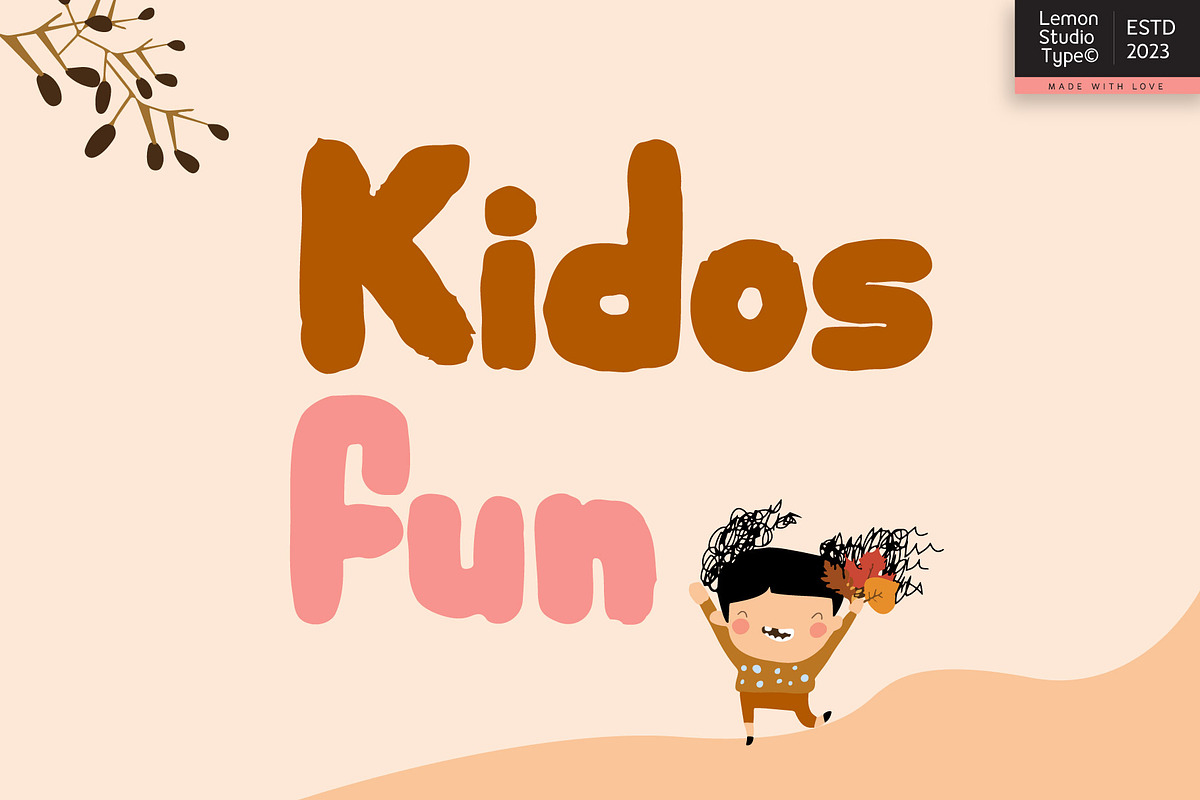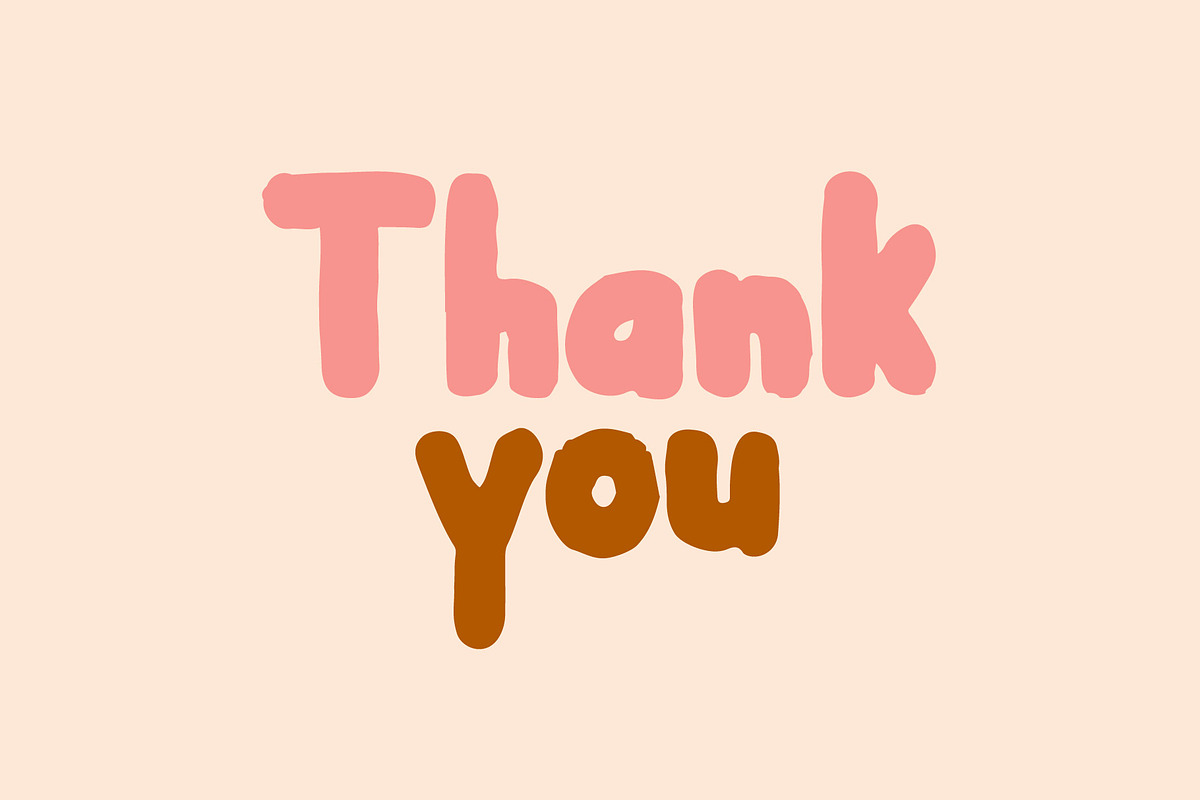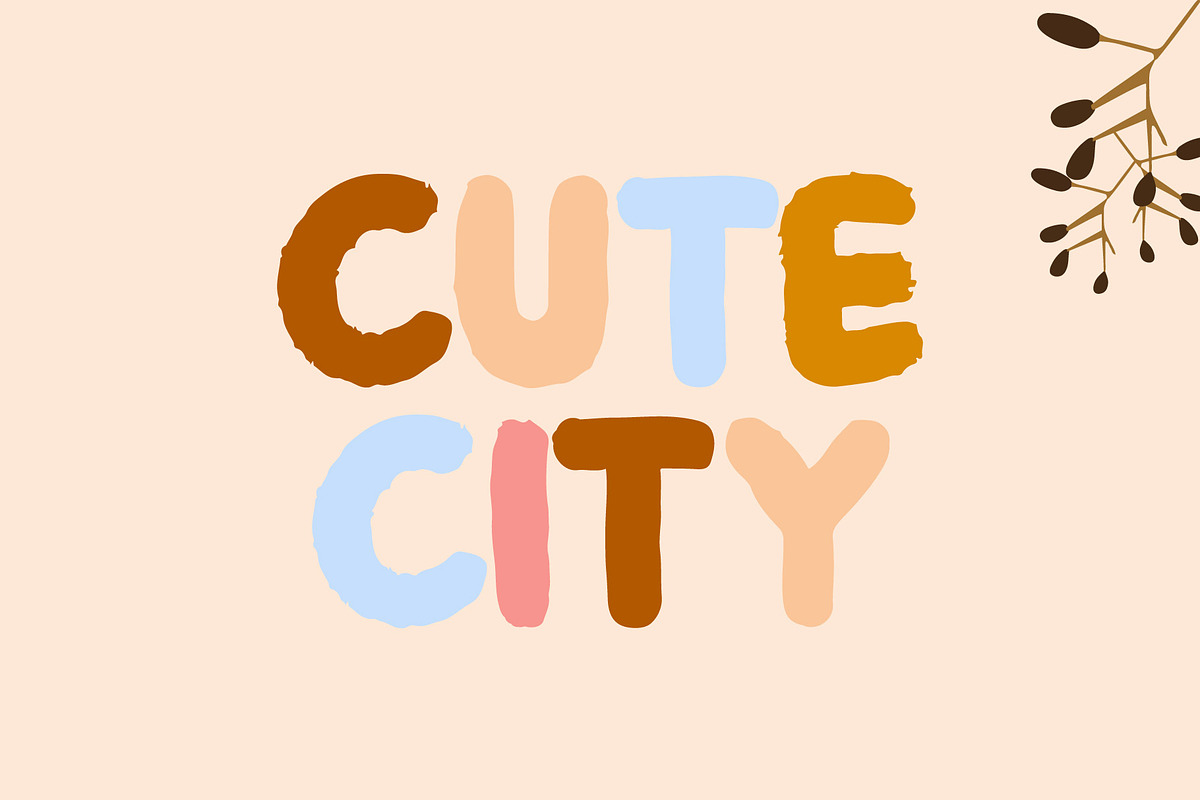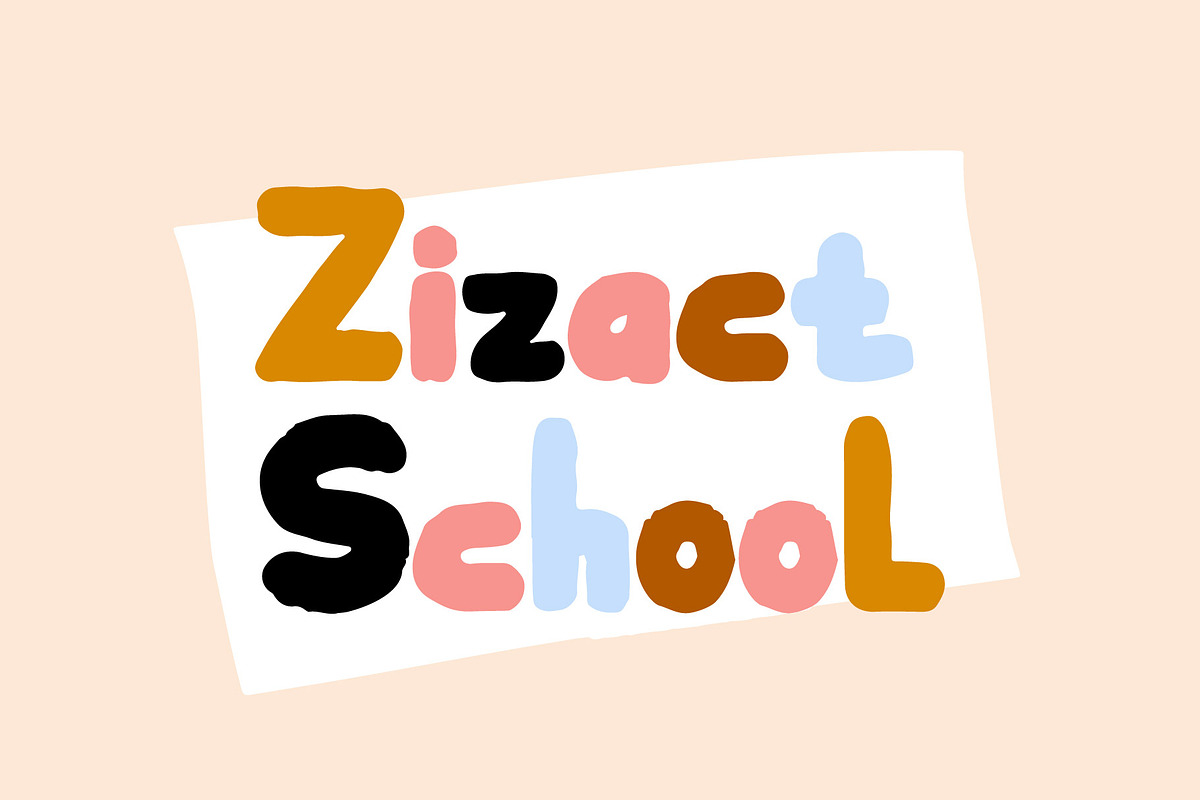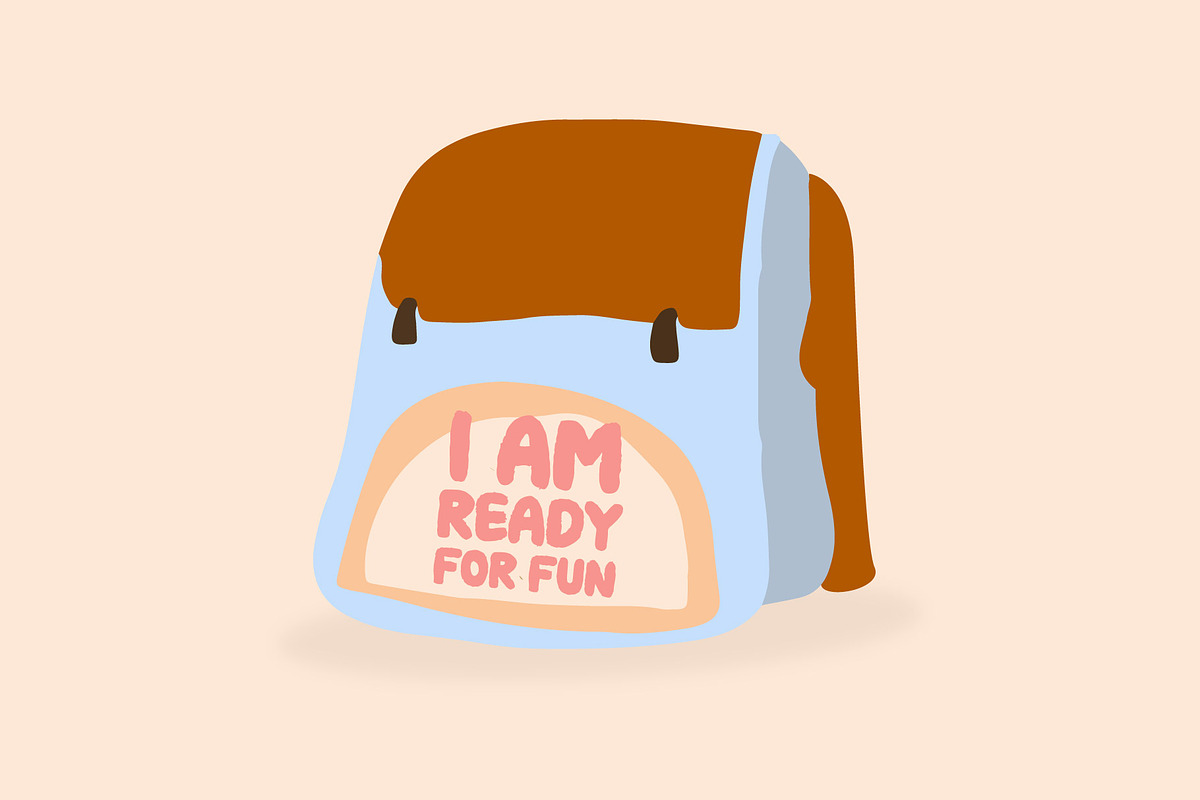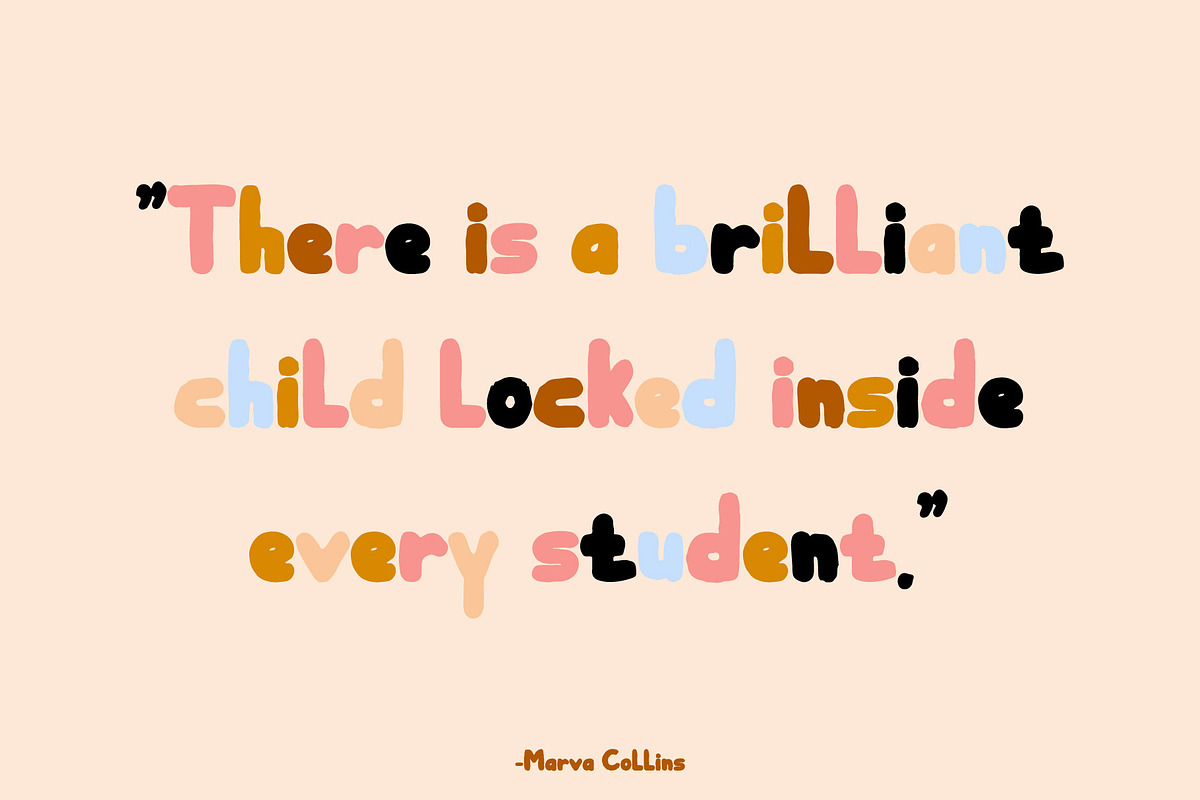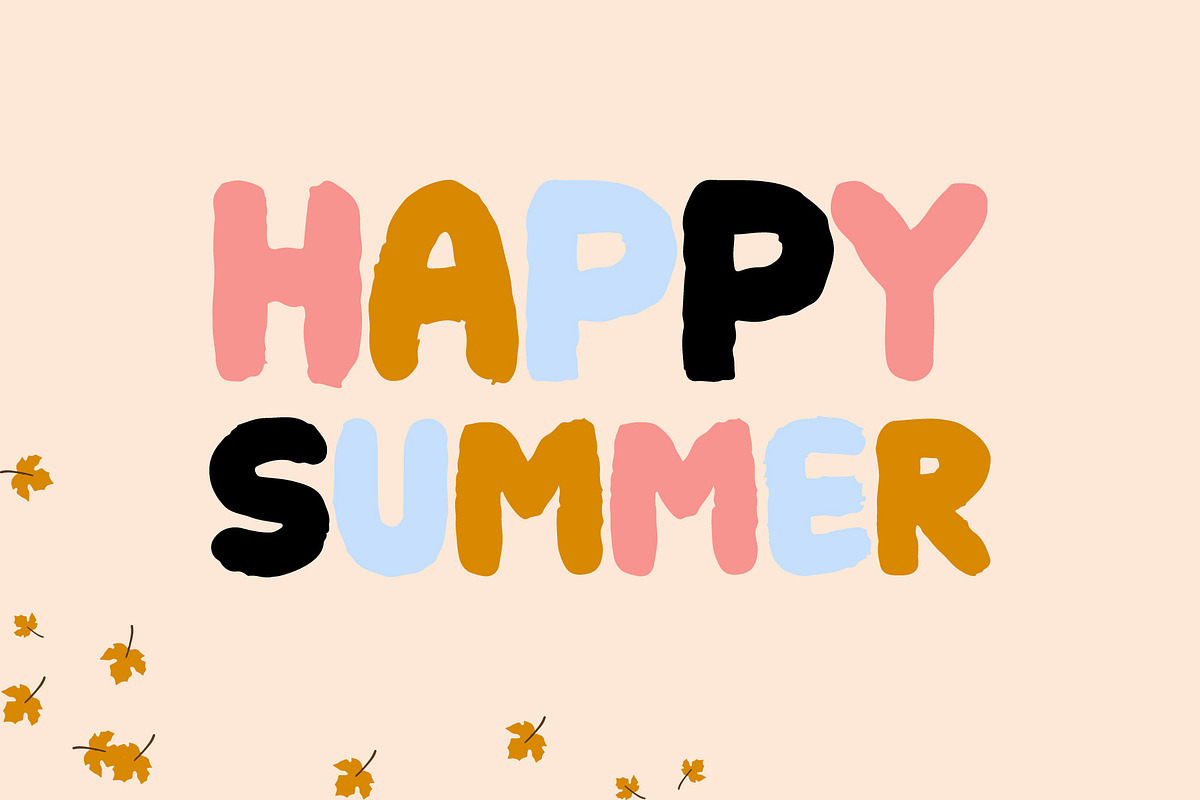
Kidos Fun - Cute Handwritten
Kidosfun is a handwritten display font inspired by the theme of bubbles that children often play as something that can make them smile freely. Therefore, this font is definitely very pleasing to your eyes. Use it for titles, like book covers, kids mockups, kids school design needs, and many more.